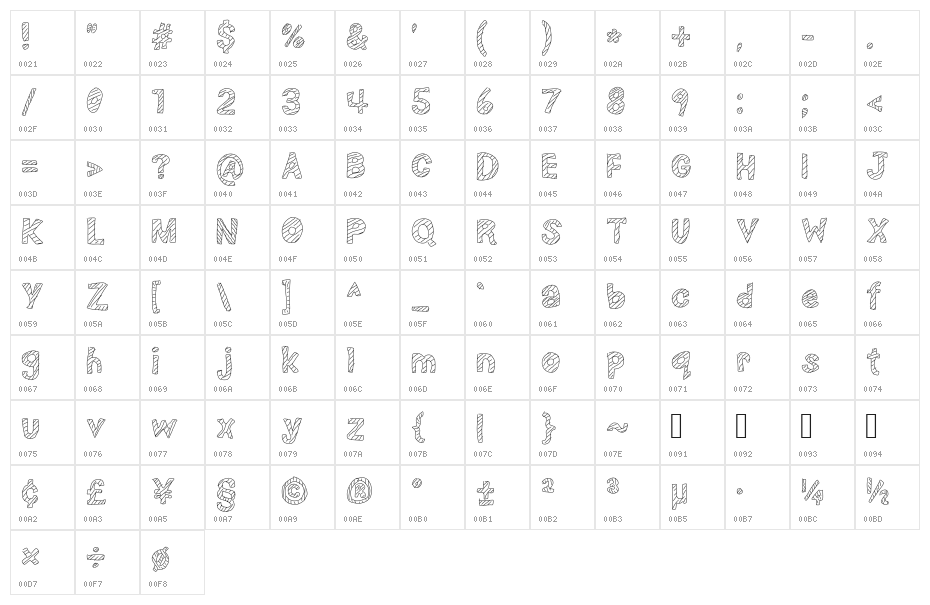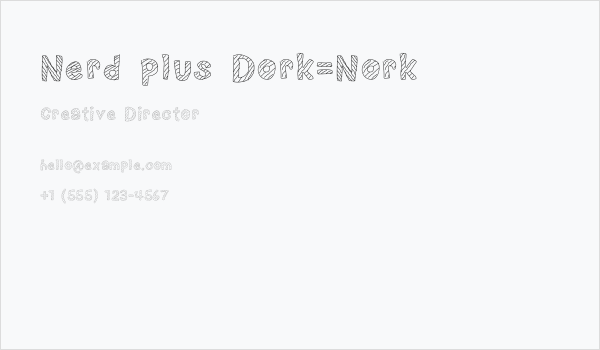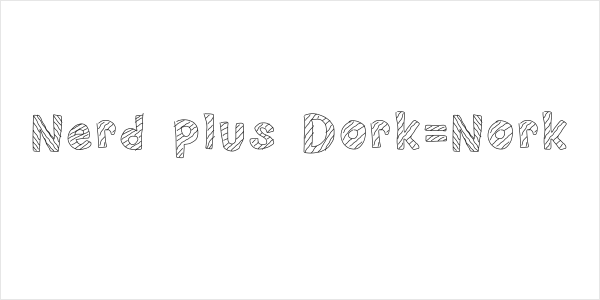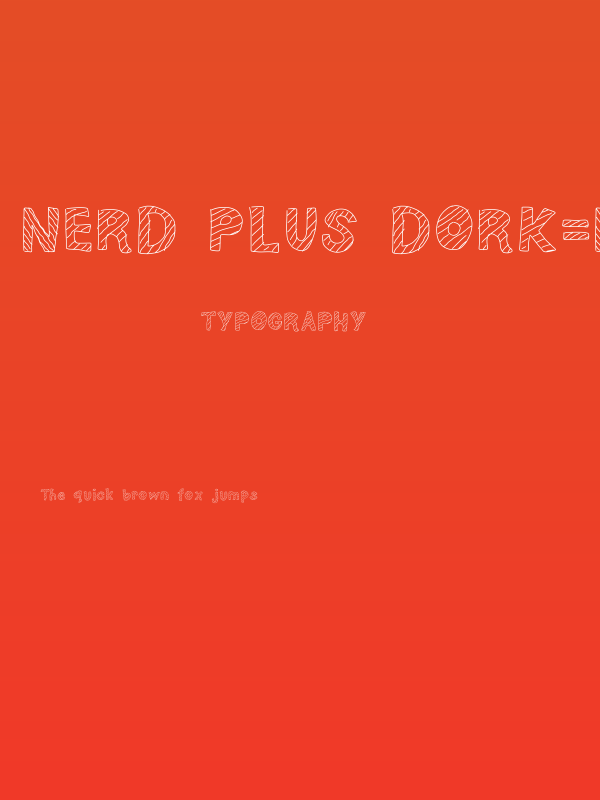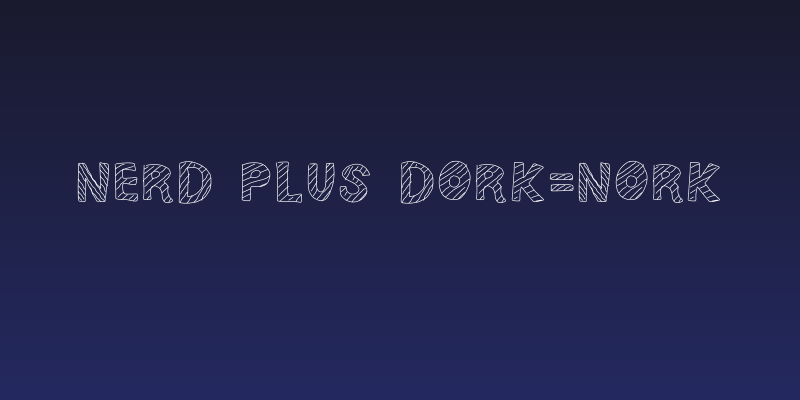
Nerd plus Dork=Nork Font
Nerd plus Dork=Nork Description
This font features a playful and quirky design with a hand-drawn aesthetic. Each character is outlined with a bold line and filled with diagonal stripes, giving it a textured appearance. The letters are slightly irregular, adding to the whimsical charm. The uppercase and lowercase letters maintain a consistent style, while the numerals and special characters complement the overall look. This font exudes a fun and casual vibe, making it suitable for creative and informal projects.
| Proposed Projects | Ideal for children's books, comic strips, playful branding, and creative posters. |